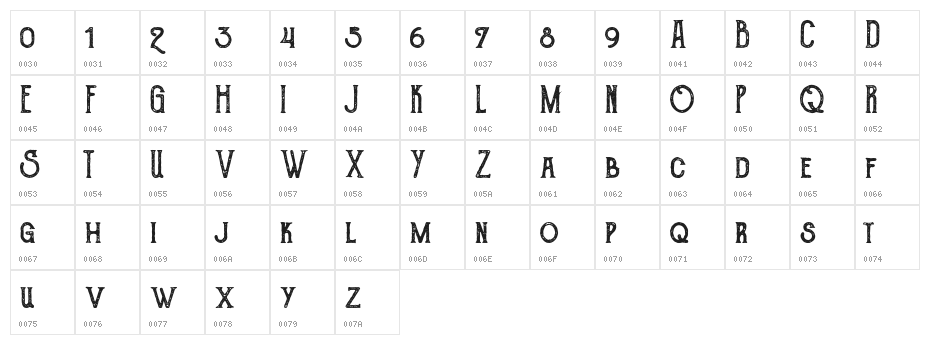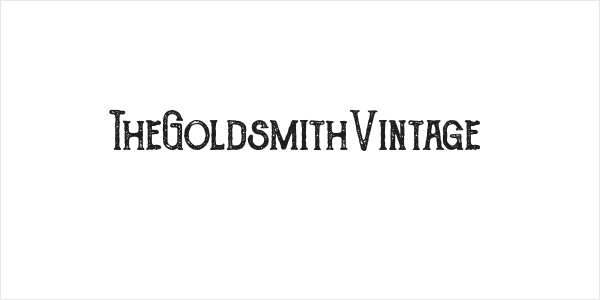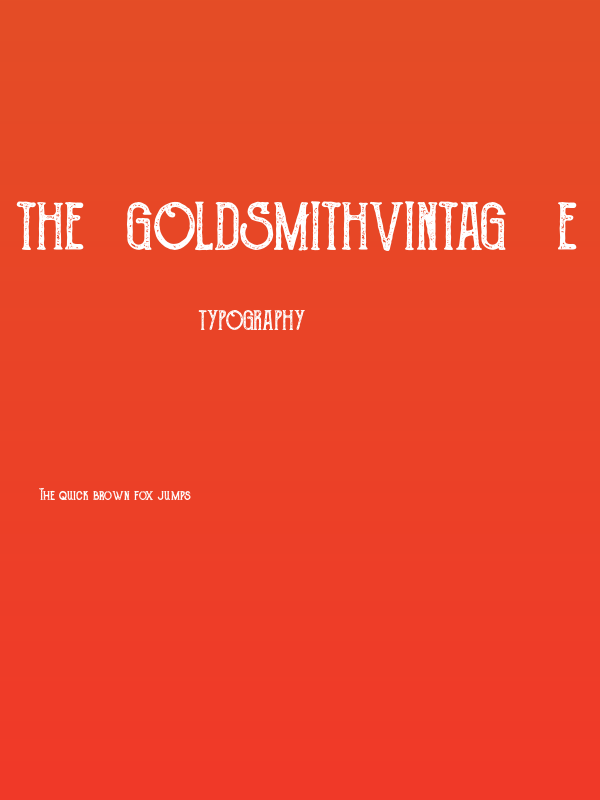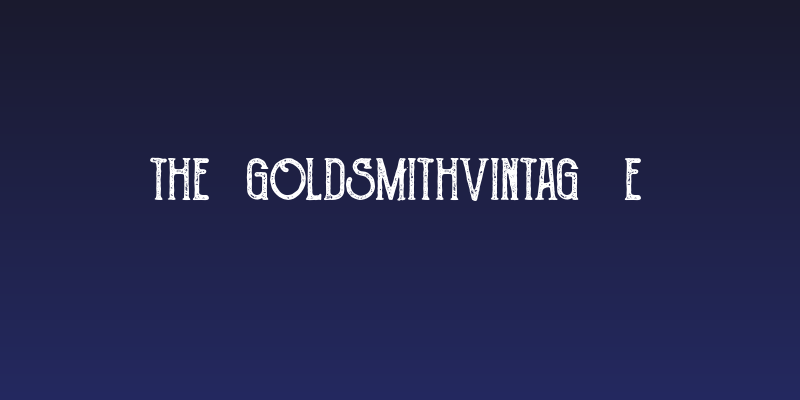
TheGoldsmithVintage Font
TheGoldsmithVintage Description
This font features a vintage, distressed style with a textured appearance that gives it an aged, rustic look. The characters are bold and have a slightly uneven, handcrafted feel, reminiscent of old signage or printmaking techniques. The uppercase letters are tall and narrow, while the lowercase letters maintain a consistent height, providing a balanced yet dynamic appearance. The numbers and special characters follow the same distressed aesthetic, making them cohesive with the rest of the set. This font's unique style is perfect for projects that require a touch of nostalgia or a handcrafted vibe.
| Proposed Projects | Ideal for vintage-themed designs, posters, branding, packaging, and any project needing a rustic, handcrafted touch. |